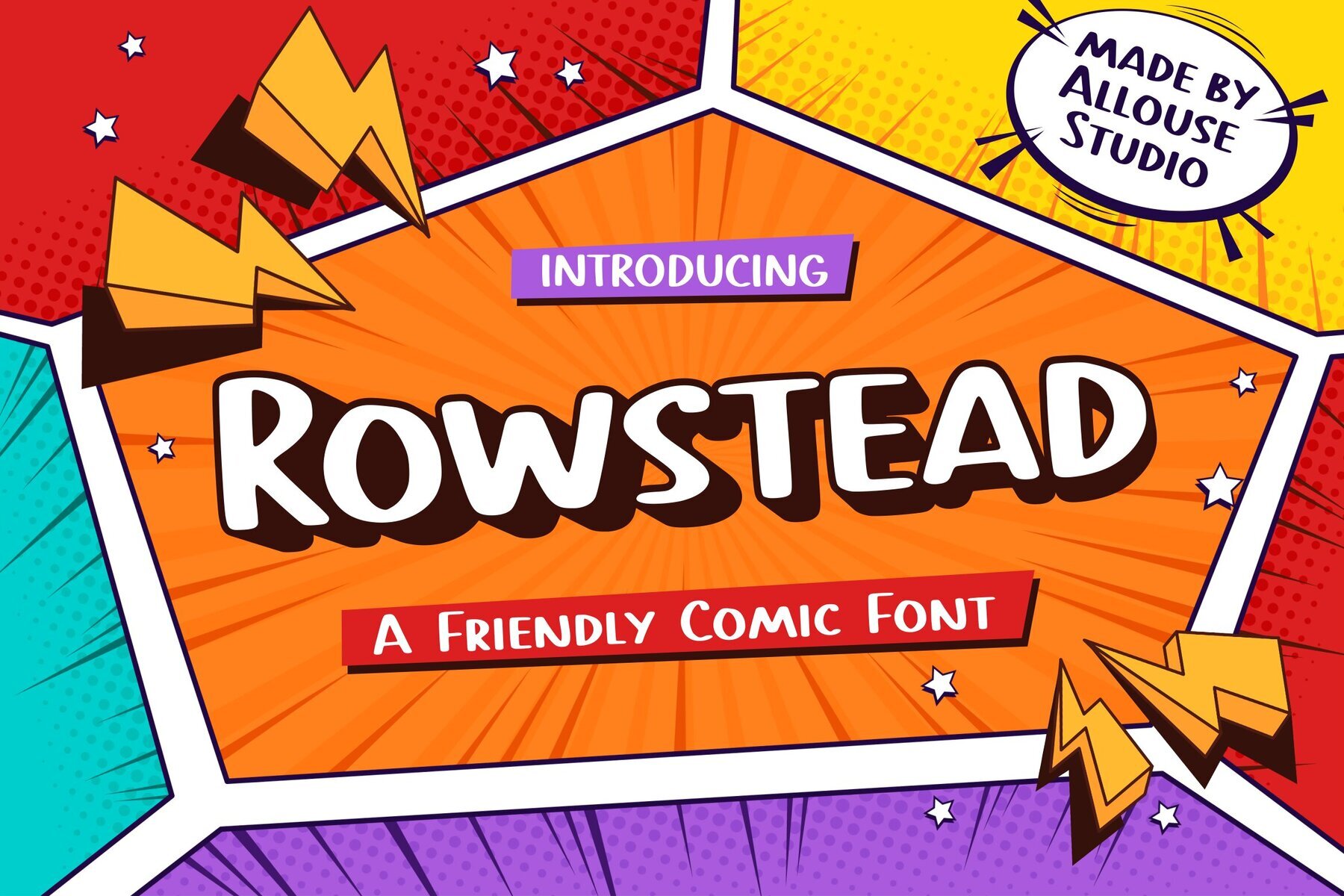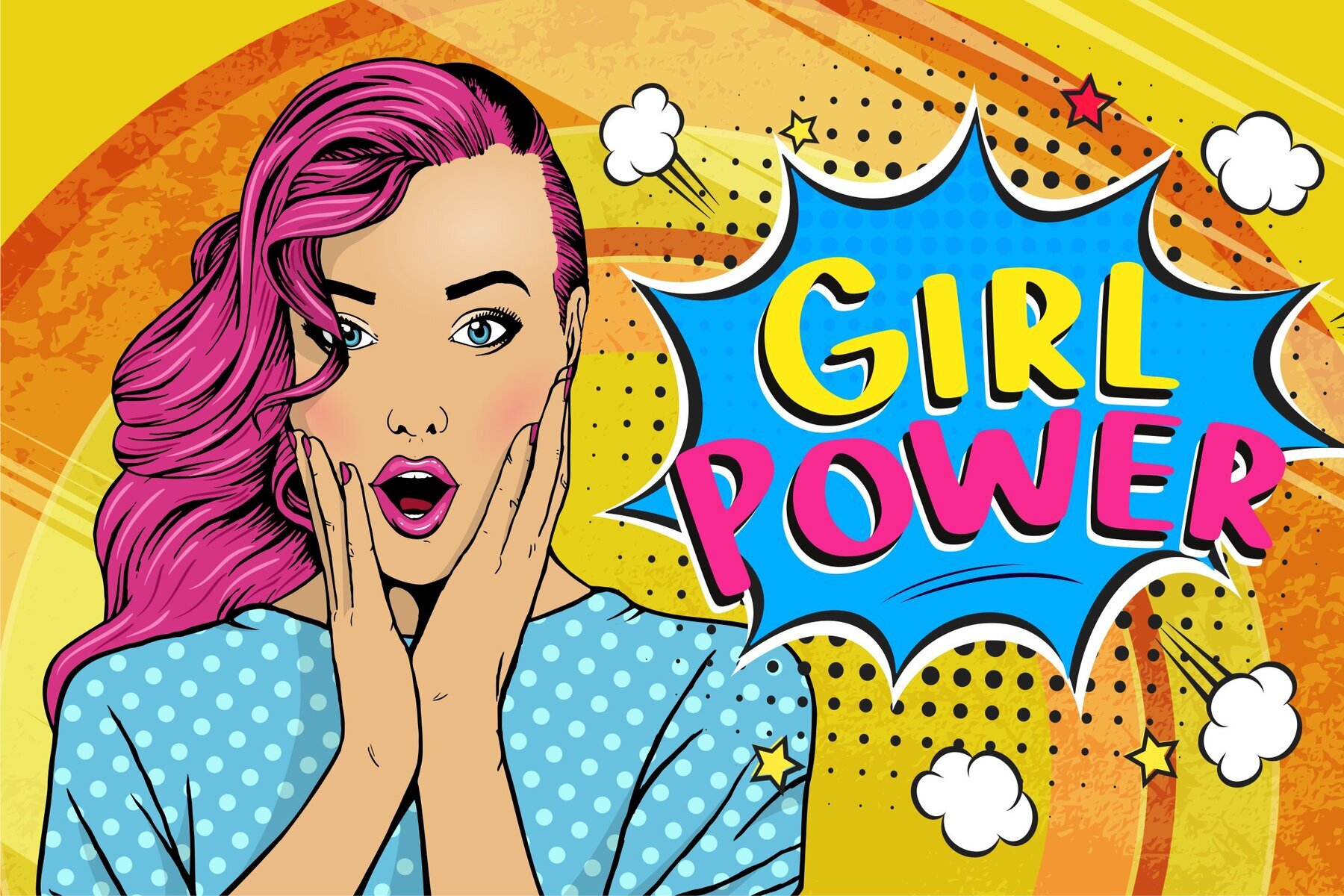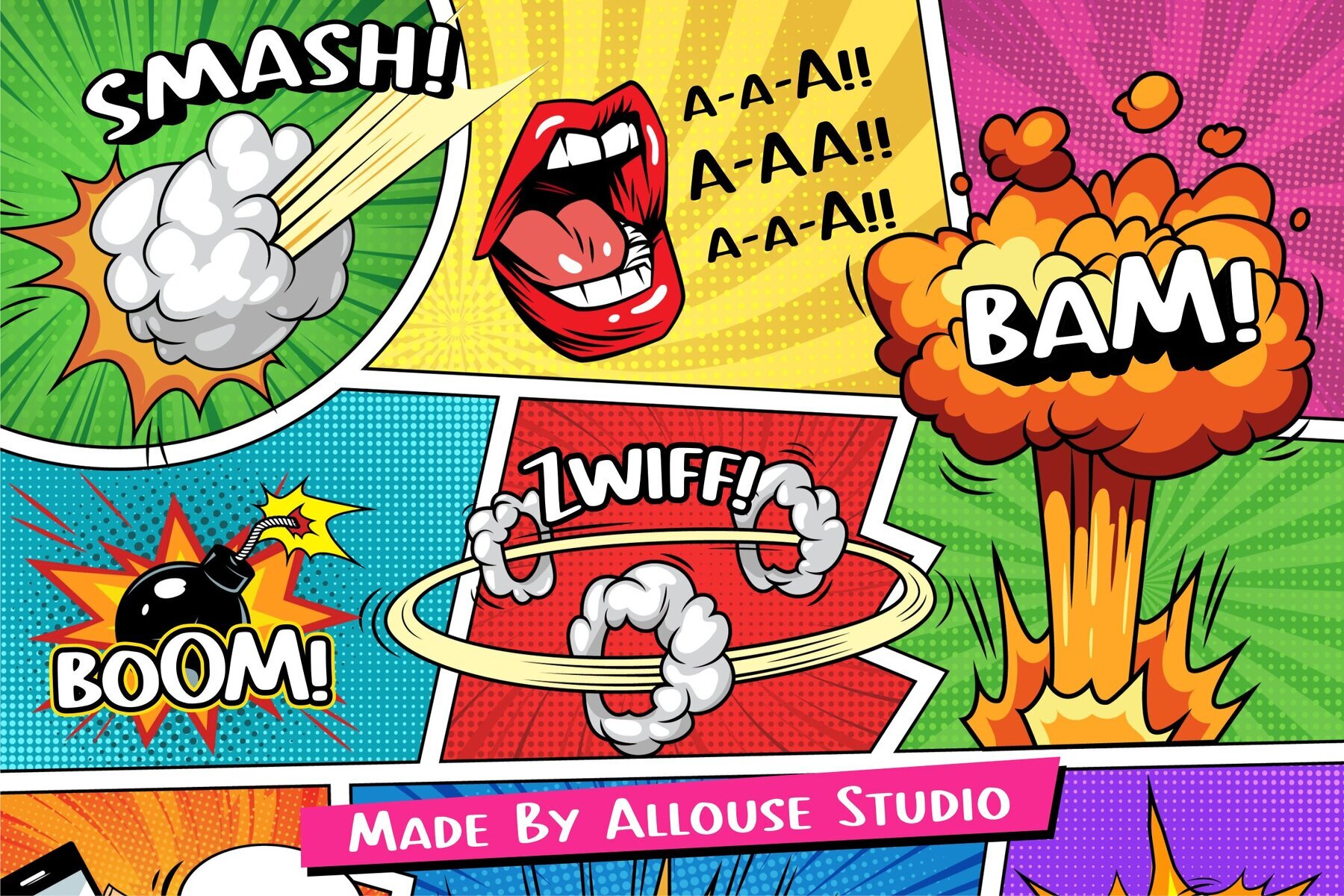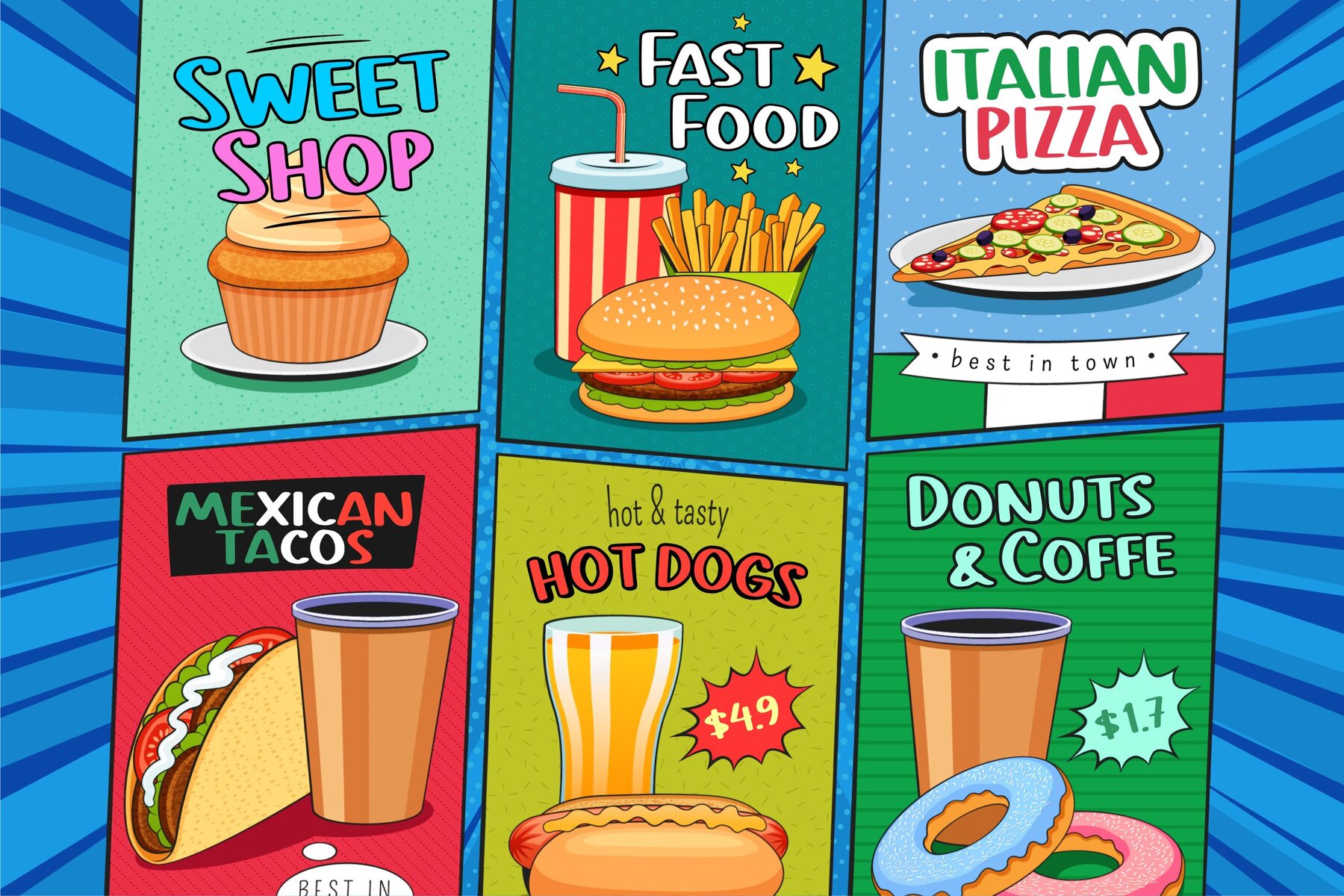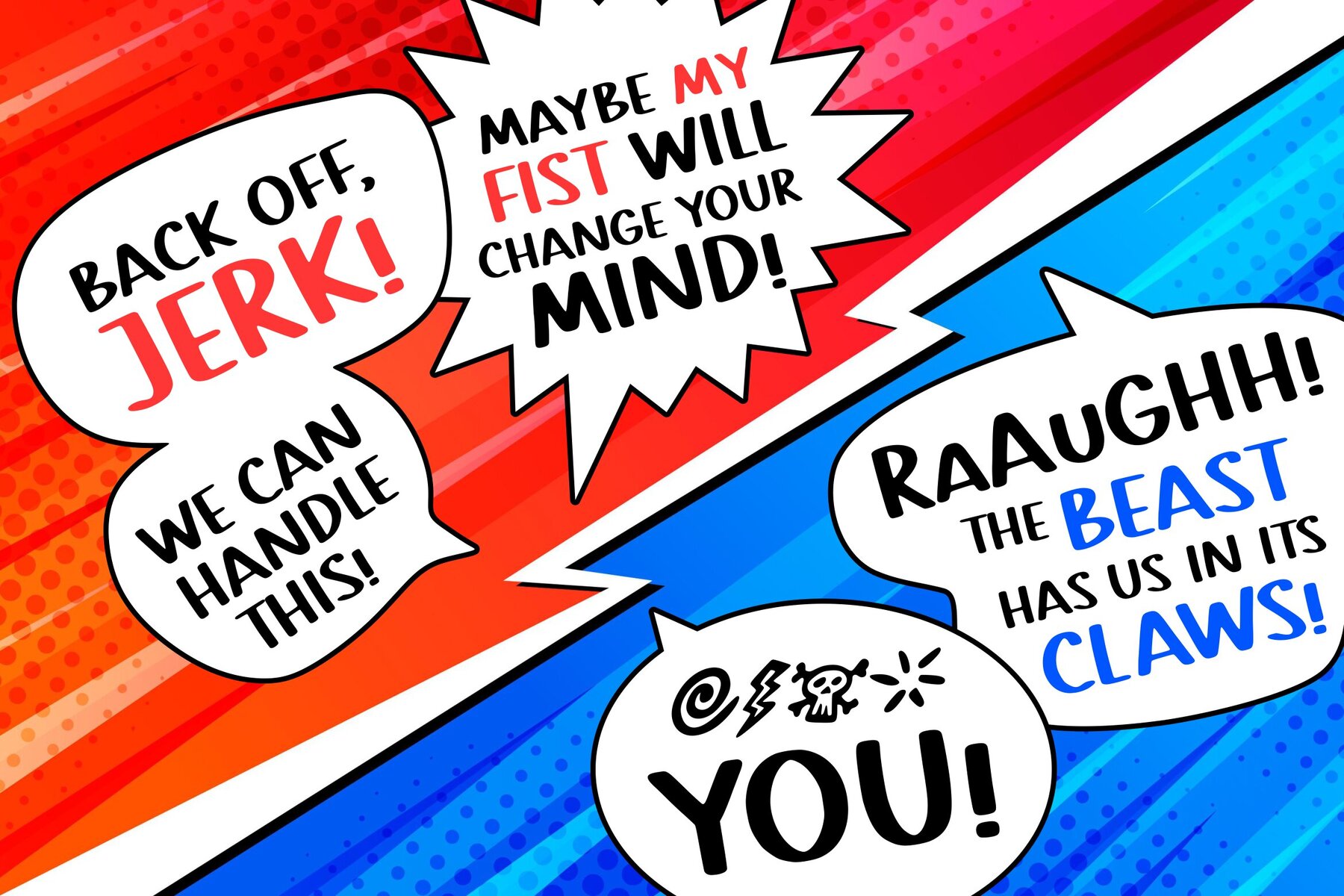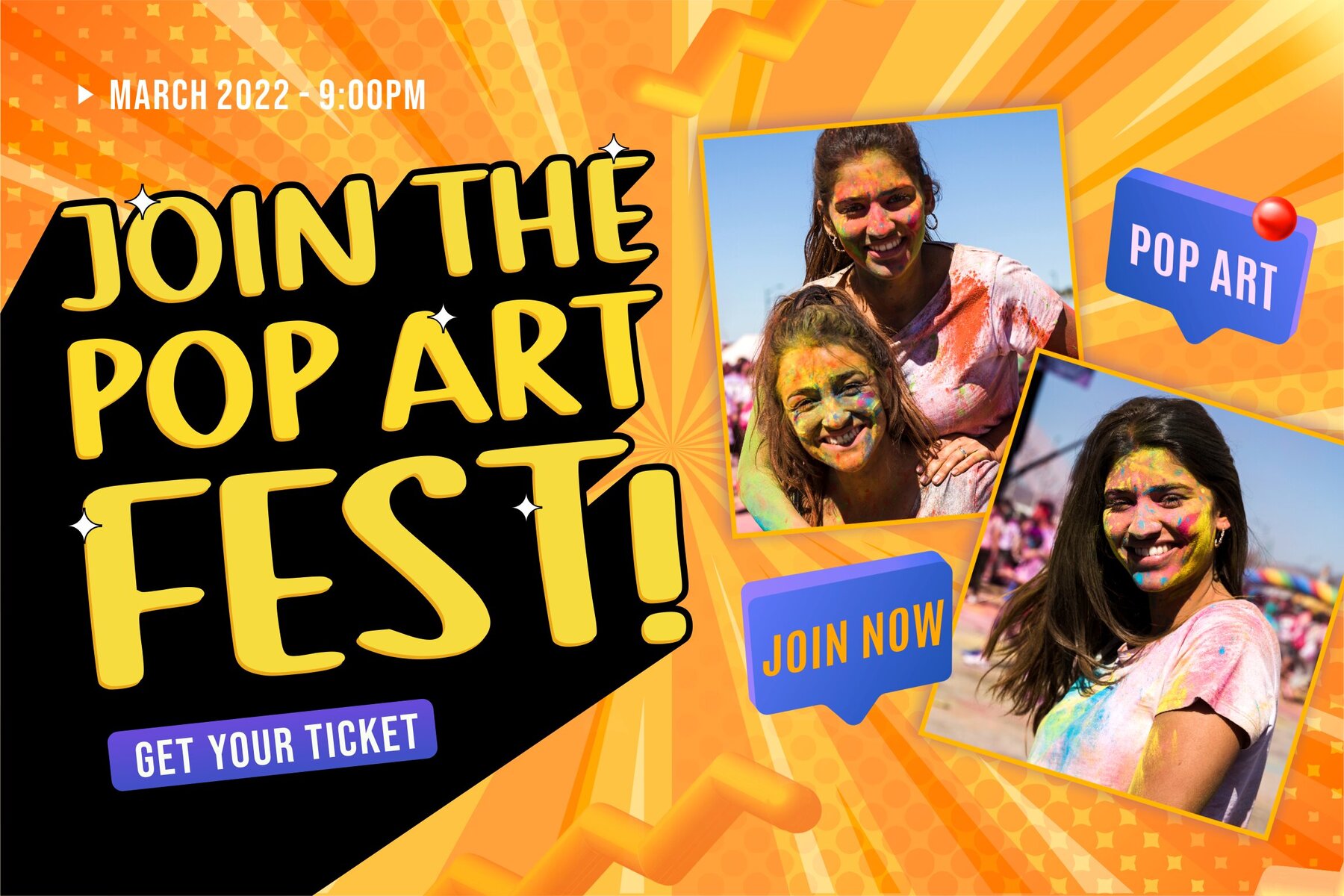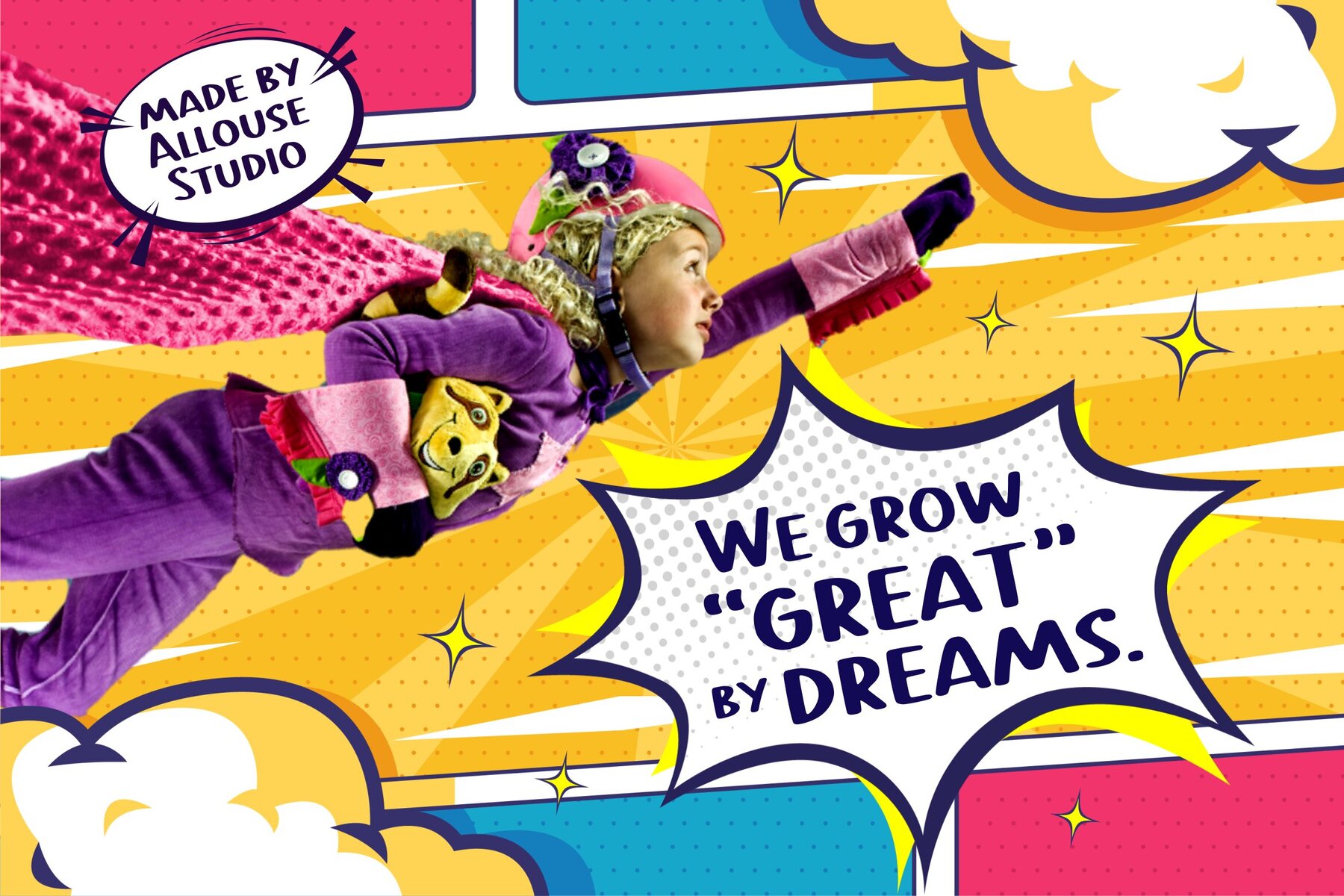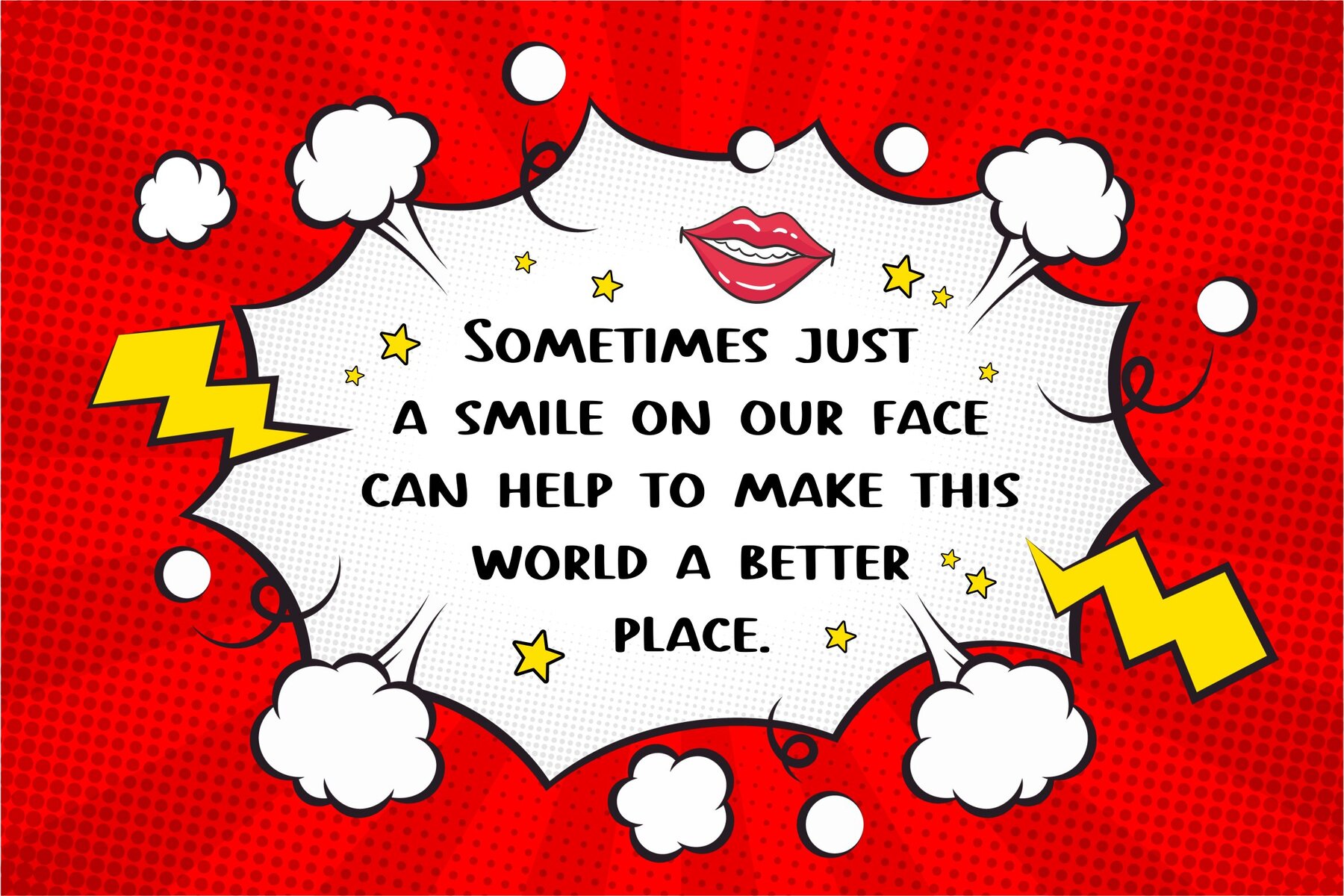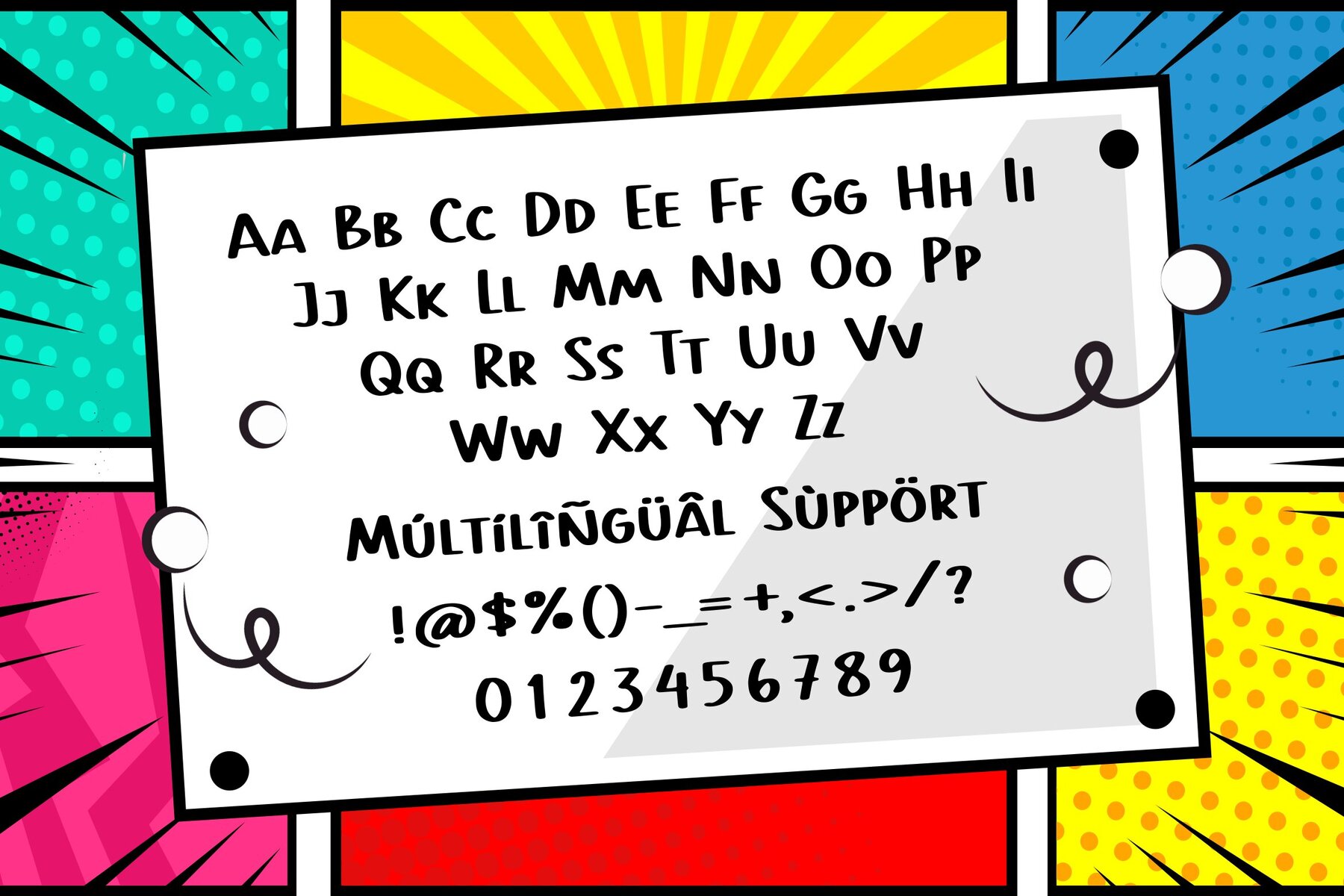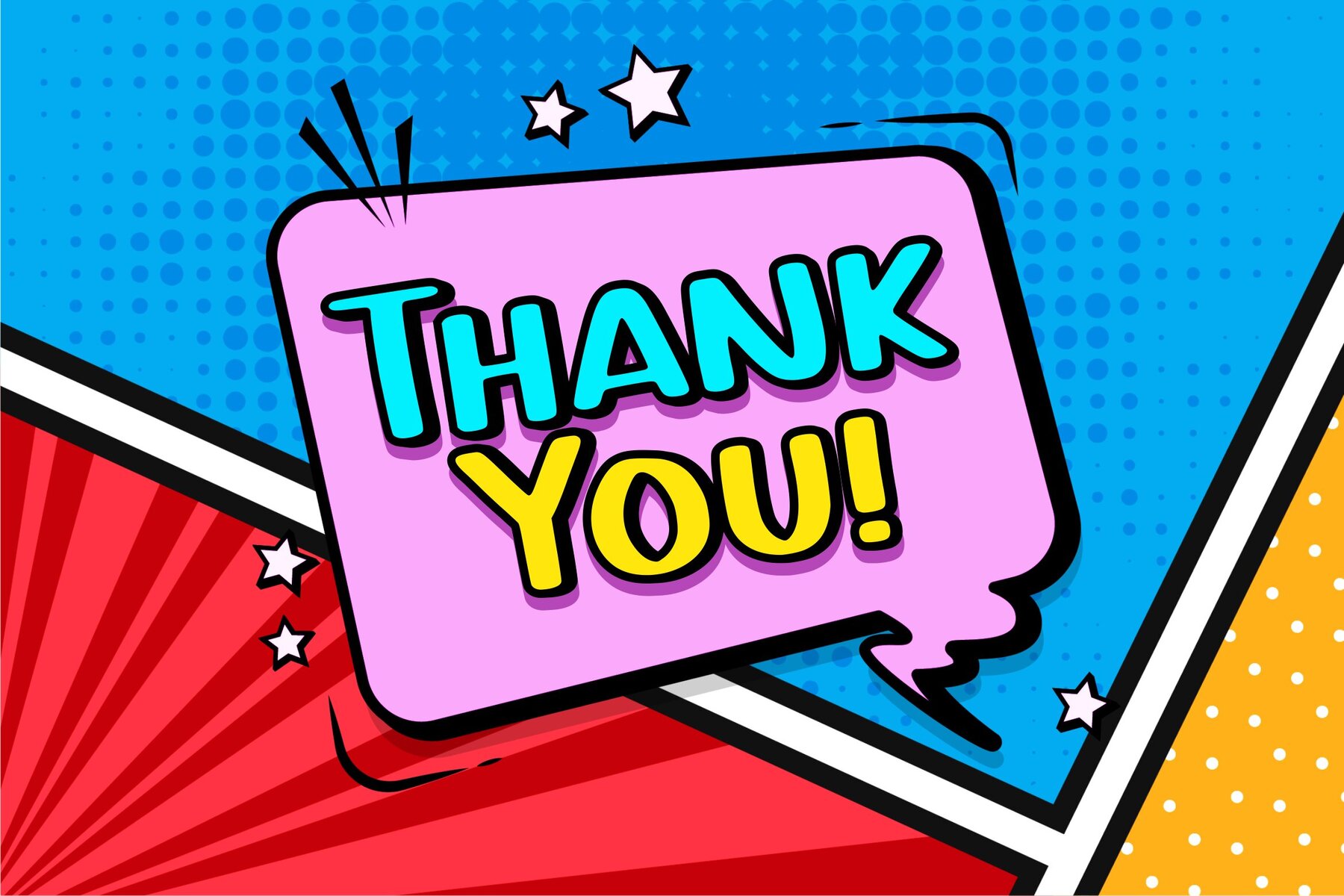
Rowstead Font
Rowstead Regular
Rowstead offers a dynamic blend of style and function, catering to diverse design needs. Whether you are crafting striking product packaging, developing a cohesive branding project, or designing a sophisticated magazine layout, Rowstead adapts seamlessly to elevate your visual communication. For wedding invitations with an elegant touch or compelling words on social media backgrounds, this typeface provides the perfect balance between form and grace.Rowstead: A Versatile Typeface for Creative Projects